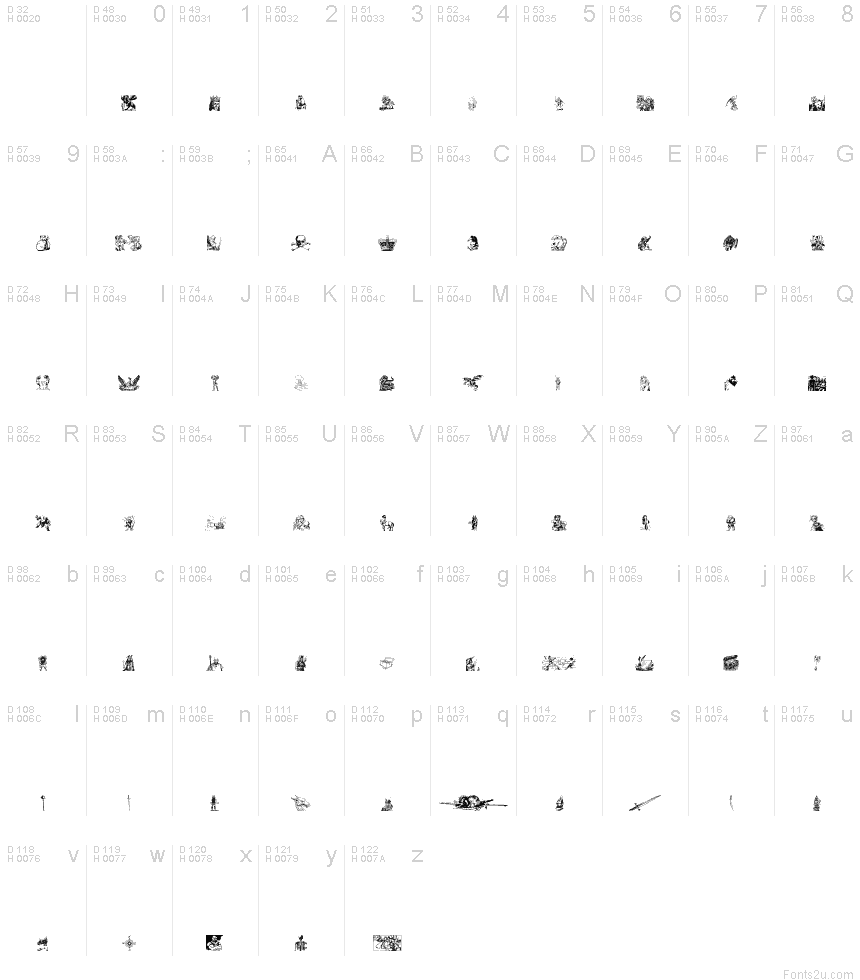
Fantasy Clipart
Fantasy Clipart font by Gemfonts98 is a free fantasy dingbat typeface packed with ink-heavy warriors, ghouls, and blades that feel torn from an old tabletop rulebook. The illustrations have a scratchy, etched quality-wild hair, battered armor, and chipped steel-that instantly drops your layout into a grim, story-rich world without needing full-color art. Each glyph reads like a tiny scene, giving you ready-made visuals that still feel handmade and gritty.
Using Fantasy Clipart, you can quickly dress up RPG character sheets, adventure modules, fantasy zines, posters, bookmarks, or game night invitations with consistent, atmospheric art. The icons sit nicely as borders or spot illustrations; try pairing this free font with a clean serif or geometric sans for body text so the detailed drawings stay center stage.